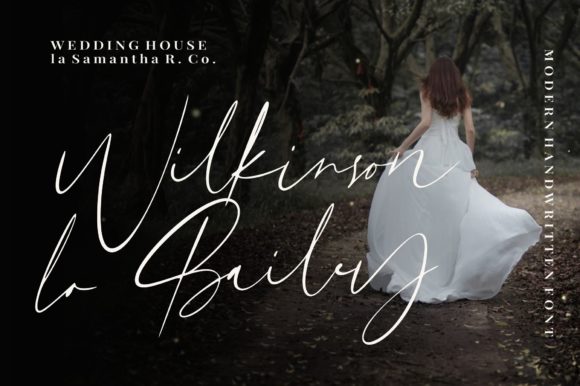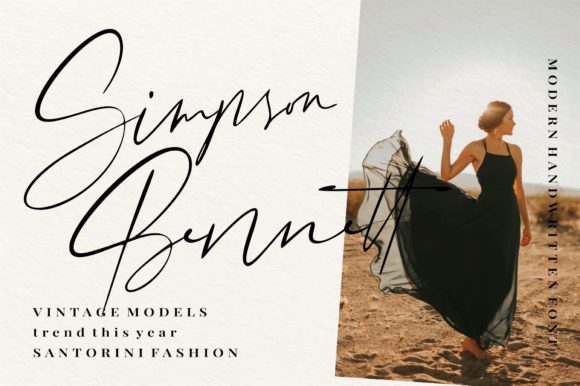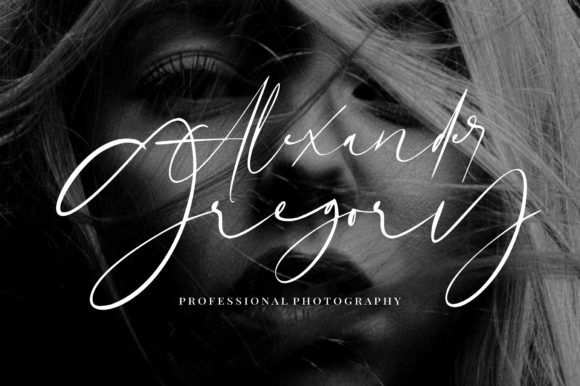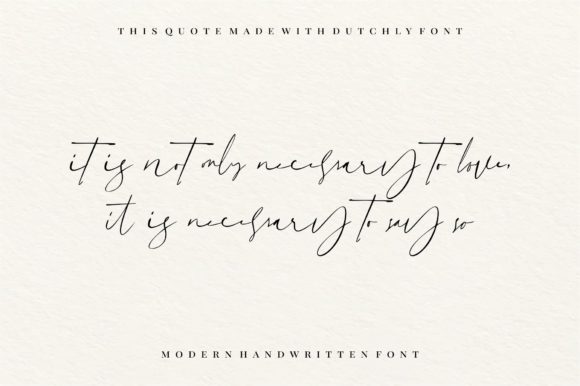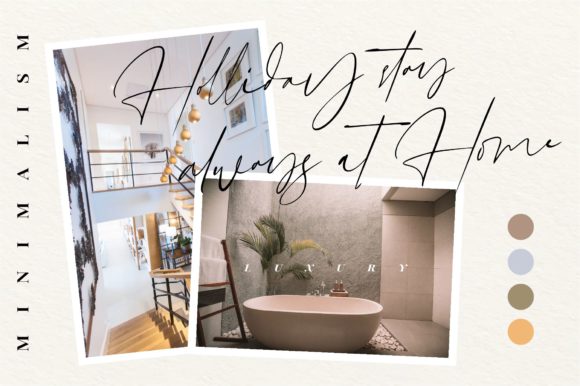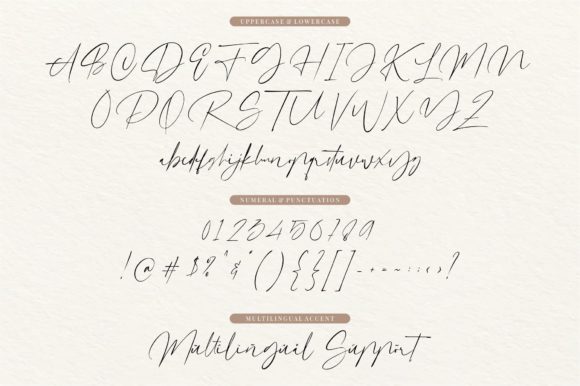
Introduction to Dutchly Font
Have you ever been working on a creative project, pouring your heart and soul into every detail, only to realize that the perfect font is missing? This is where the magic of the Dutchly Font comes in – a high-quality, modern handwritten font that can elevate your design to the next level. With its smooth lines, gorgeous glyphs, and stunning alternates, the Dutchly Font is a valuable resource for any designer looking to add a touch of elegance to their work.
Whether you’re working on a branding project, a poster, or a digital design, the Dutchly Font is the perfect addition to your toolkit. Its versatility and high-quality design make it a must-have for any creative project. And the best part? The Dutchly Font is PUA encoded, making it easy to access all of its glyphs and swashes with ease. So why settle for anything less when you can have the Dutchly Font to bring your designs to life?
About the Dutchly Font
With its transparent background and free download option, the Dutchly Font is an accessible design resource for designers of all levels. Whether you’re a seasoned professional or just starting out, the Dutchly Font is a valuable tool to have in your arsenal. So why not give it a try and see how the Dutchly Font can help take your designs to the next level?
Key Features of Dutchly Font
- Comes in a transparent background, allowing for seamless integration into various design elements.
- Features a unique, elegant design with a touch of sophistication, making it perfect for a variety of applications.
- Perfect for designers, artists, and writers looking for a stylish and professional font for their creative projects.
Honest Review: Dutchly Font
As a designer, I’m always on the lookout for high-quality design resources that can elevate my creative projects. The Dutchly Font has been a recent addition to my toolkit, and I’m excited to share my honest review.
- ✨ Beautifully crafted typography with a unique, modern aesthetic.
- ✨ Great for creative projects that require a touch of sophistication and elegance.
- ⚠️ Limited character set, which may not be suitable for complex projects.
- ⚠️ No transparent background option, which can be a bit restrictive for some designers.
Overall, I’m impressed with the Dutchly Font’s clean design and versatility. While it may not be the most comprehensive font set, it’s an excellent choice for designers looking for a high-quality, modern aesthetic. With a free download option, it’s definitely worth adding to your design resource library.
How to Use Dutchly Font
Dutchly Font is suitable for various design projects, including logos, brochures, business cards, and social media graphics. Its high-quality design and transparent background feature make it an ideal choice for creative projects.
Tips for Getting the Most Out of Dutchly Font
To get the most out of Dutchly Font, experiment with different font sizes, colors, and styles. Use the font’s transparent background feature to create a seamless design. You can also combine Dutchly Font with other design elements to create a unique and visually appealing design.